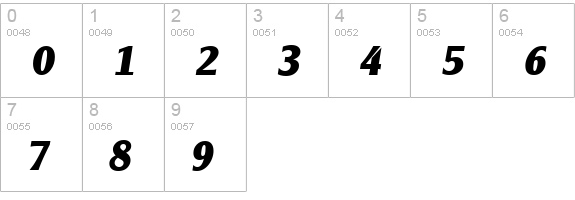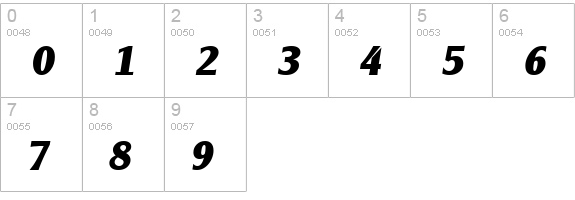
ClearGothicSerial-Xbold-Italic is a distinctive, italic variant in the ClearGothicSerial typeface family \xE2\x80\x94 well suited to design and typography projects.